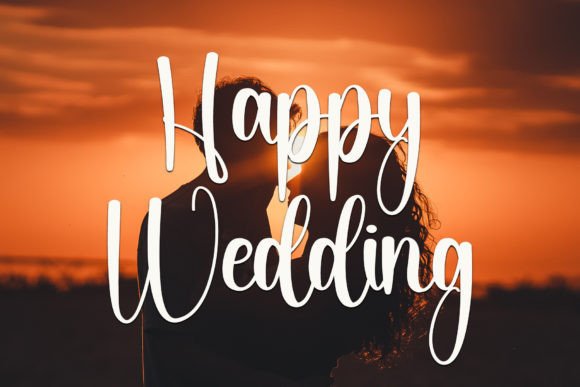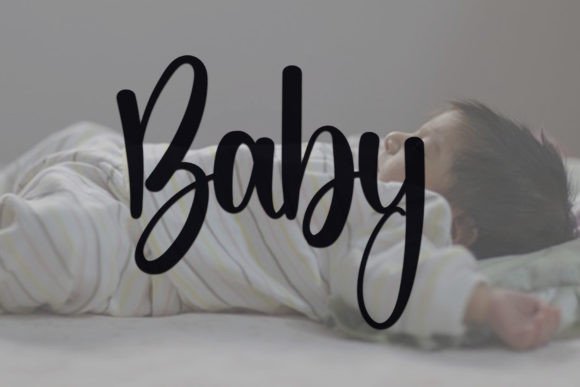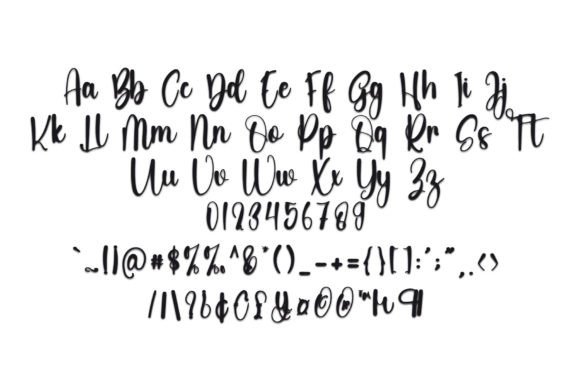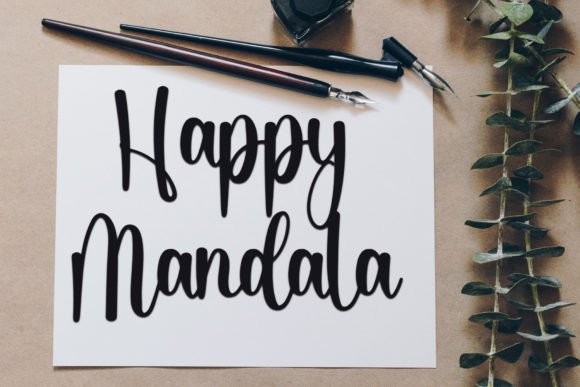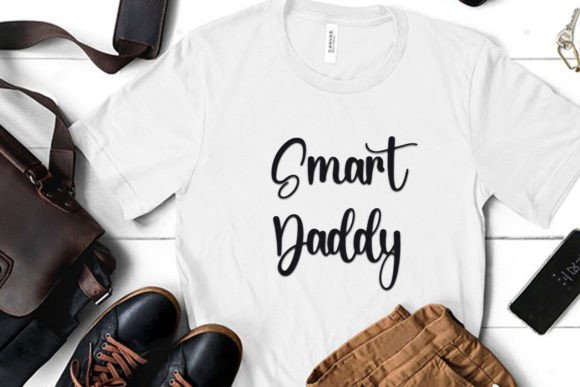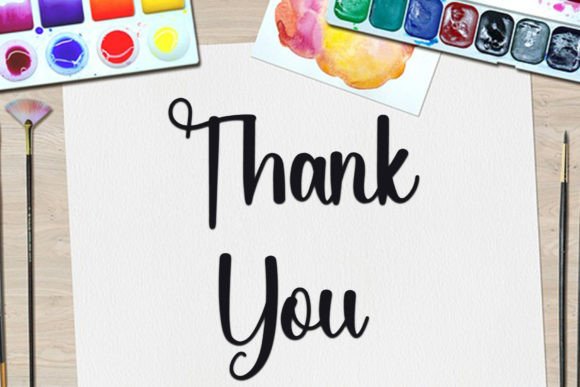
Introduction to Smile Together Font
Smile Together is a neat and beautiful handwritten font described by an elegant touch, perfect for your favorite projects.
Fall in love with its incredibly distinct and timeless style, and use it to create spectacular designs .